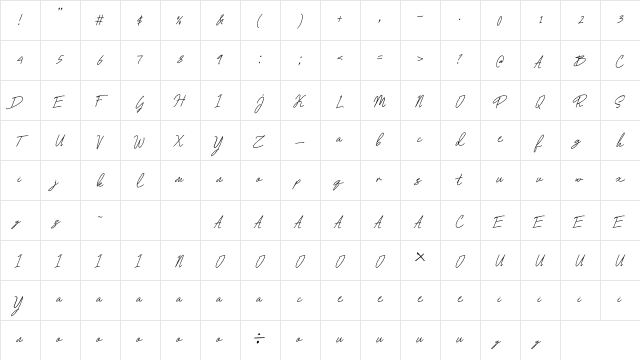
Purity Regular
Design Context for Purity
Purity is a composed and adaptable typeface that performs quietly and consistently across a wide range of design contexts.
Pro Tip: Use Purity in both headline and body roles to test its range before committing to a single application.